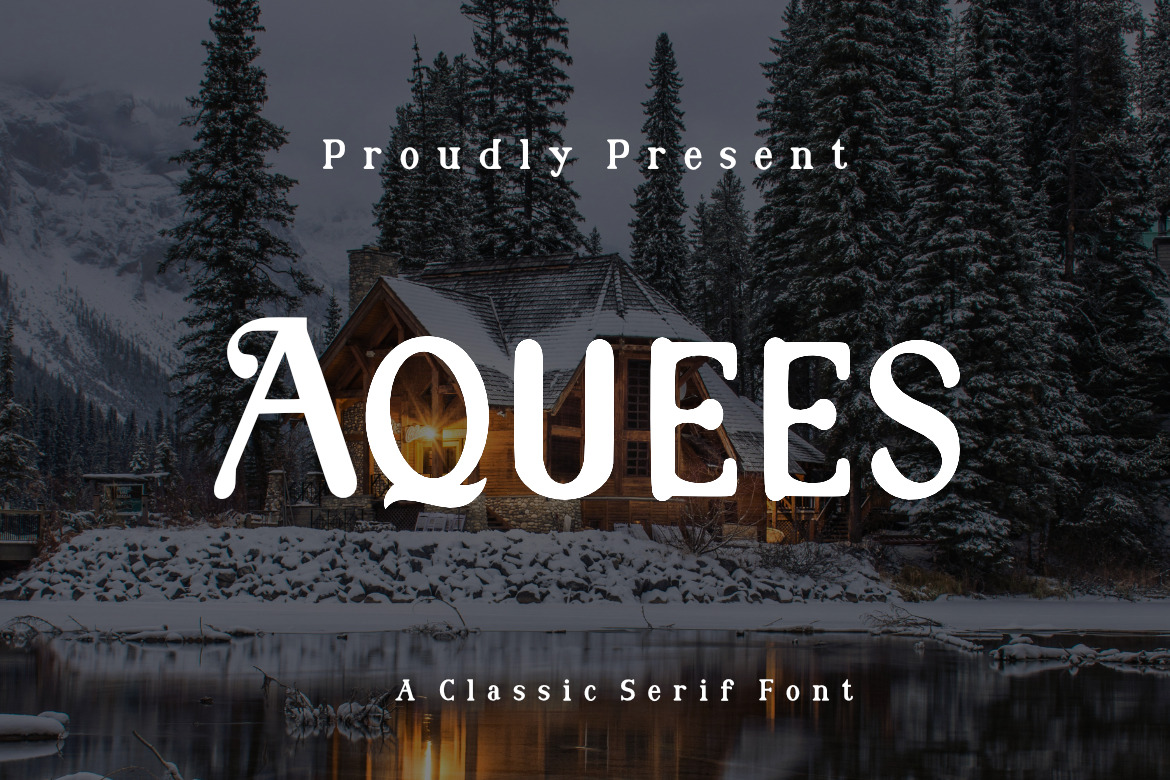
Aquees | A Classic Serif Font
Aquees - A Classic Serif Font, inspired by classic Serif Font. This font is made with a high premium quality level which you can use as flyers, quotes, posters, banners, packaging, merchandise, logotypes and much more.